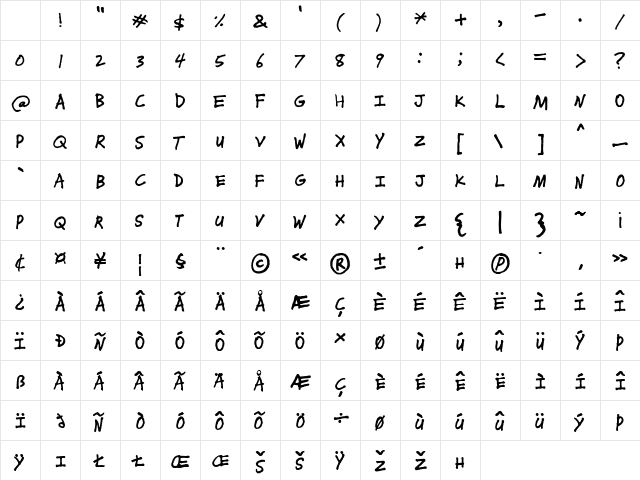
Complete J.Kasperville Regular glyph index. Displaying only characters natively supported by J.Kasperville Regular font.
J.Kasperville is a composed and adaptable typeface that performs quietly and consistently across a wide range of design contexts.